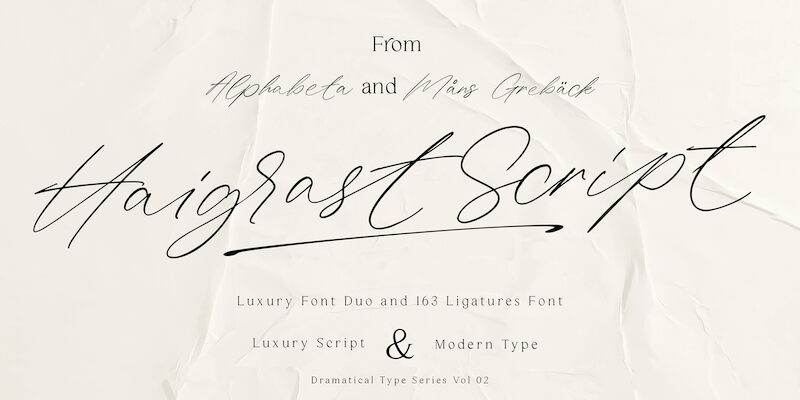
Haigrast Script PERSONAL USE Regular
Introducing Haigrast Script, a stunningly elegant font designed by Mans Greback. With its thin strokes and handwritten signature style, Haigrast Script is perfect for adding a touch of sophistication to any project. This font is ideal for branding and logo design, wedding invitations, and other formal events. Its flowing curves and delicate lines make it an excellent choice for fashion magazines, beauty blogs, or anything that needs a graceful touch. Whether you want to create a luxurious feel or simply add some flair to your designs, Haigrast Script is the perfect choice. Try it out today!
Use underscore _ to make an underline swash.
Example: Love_letter
Use multiple underscores to make different swashes.
Example: Hand__________writer